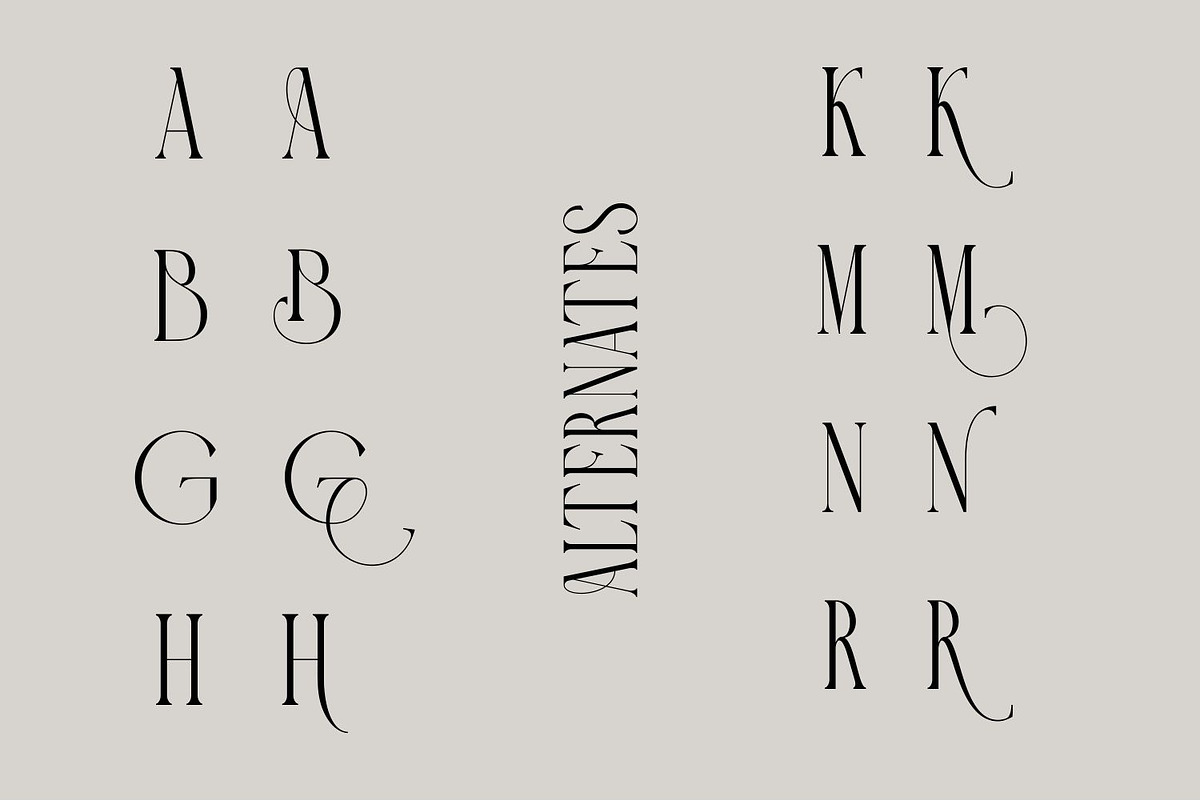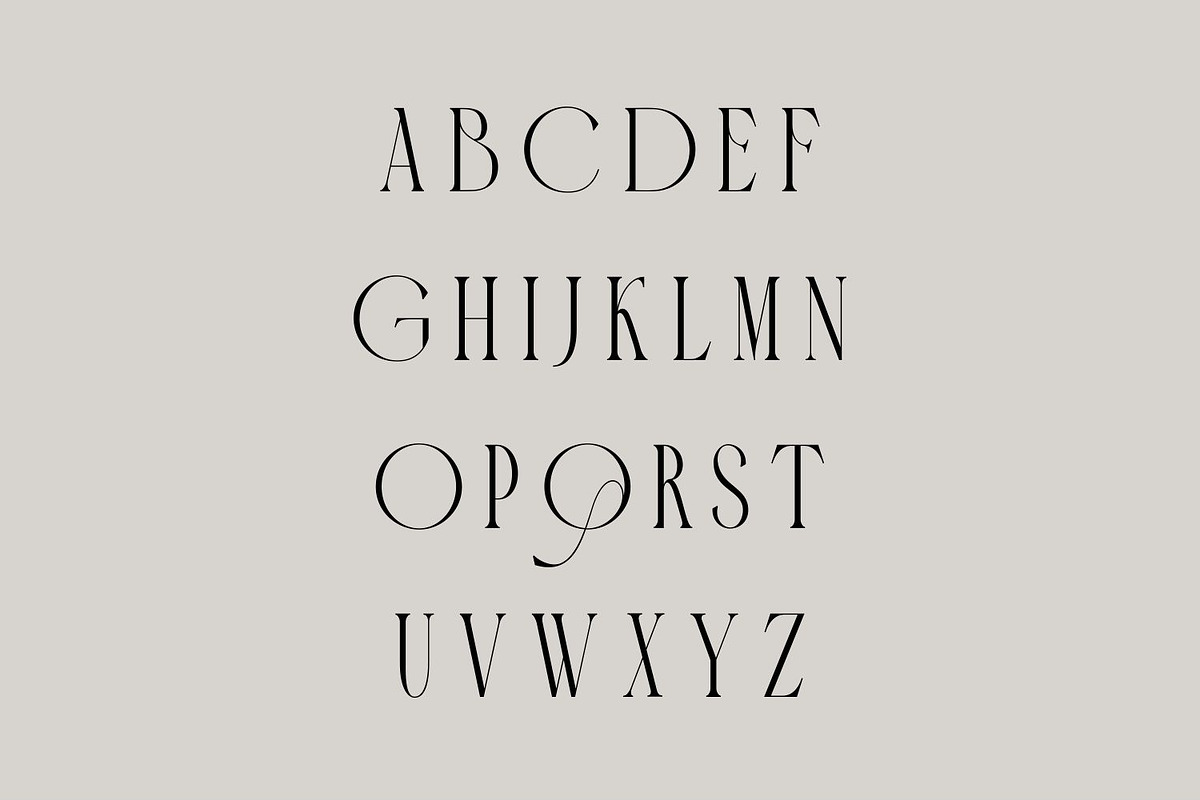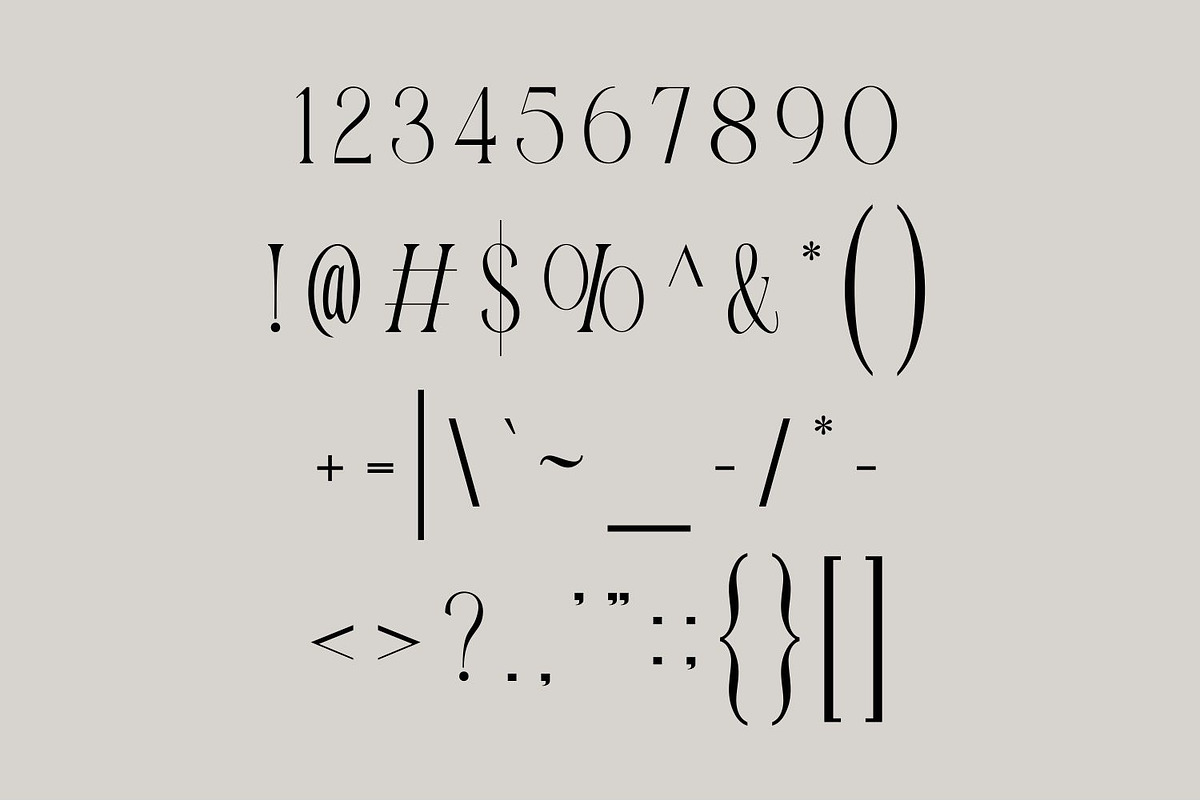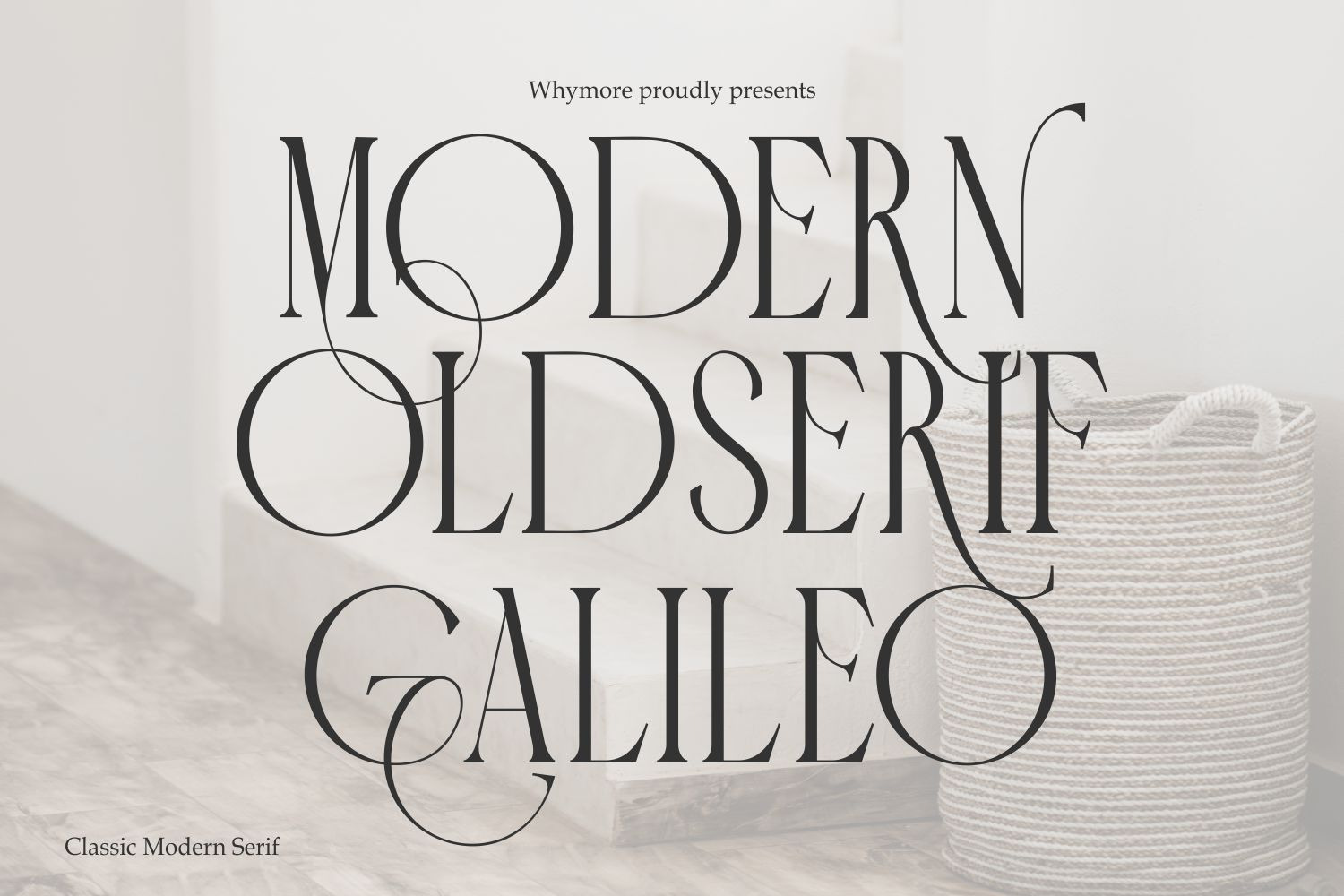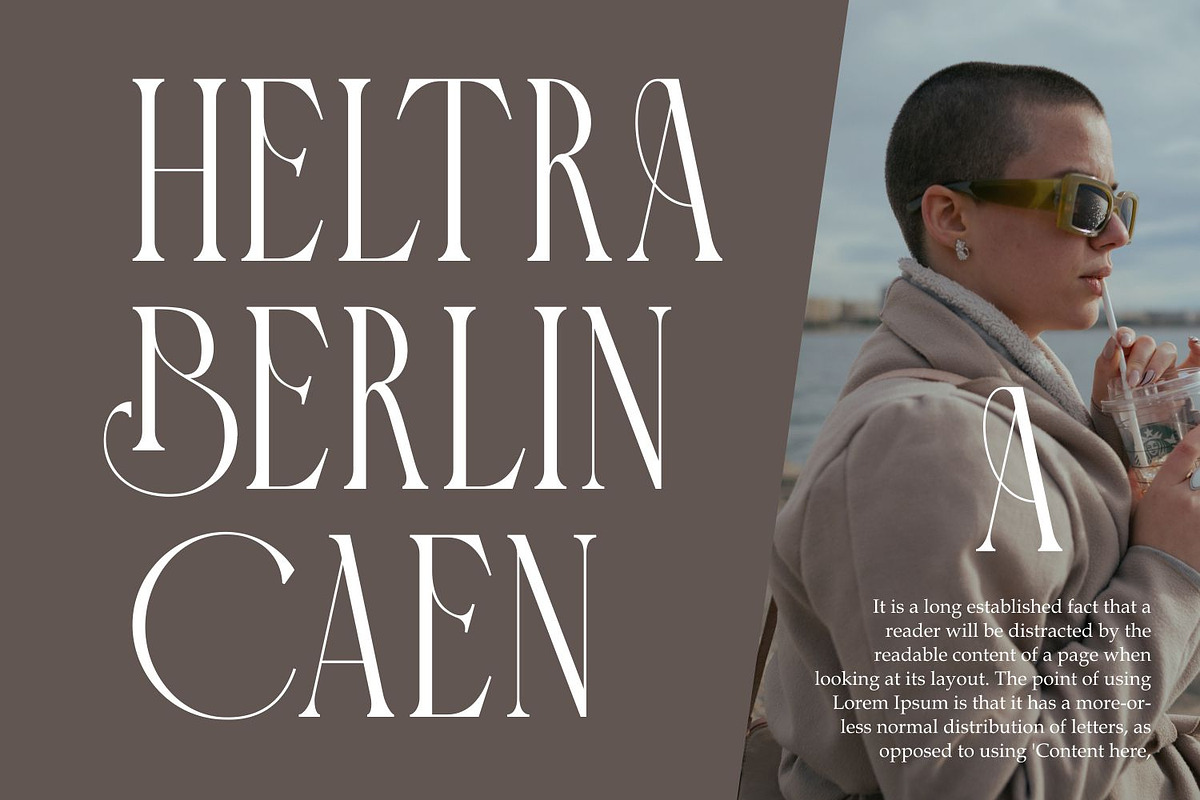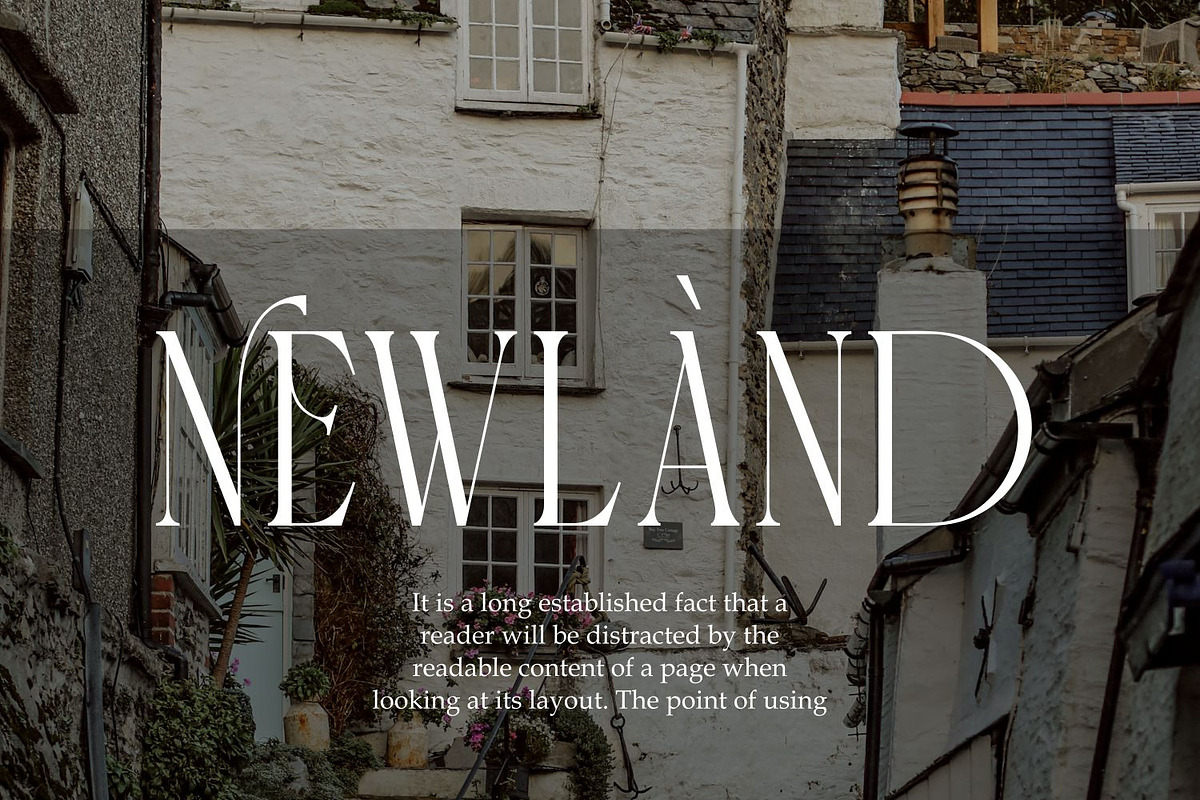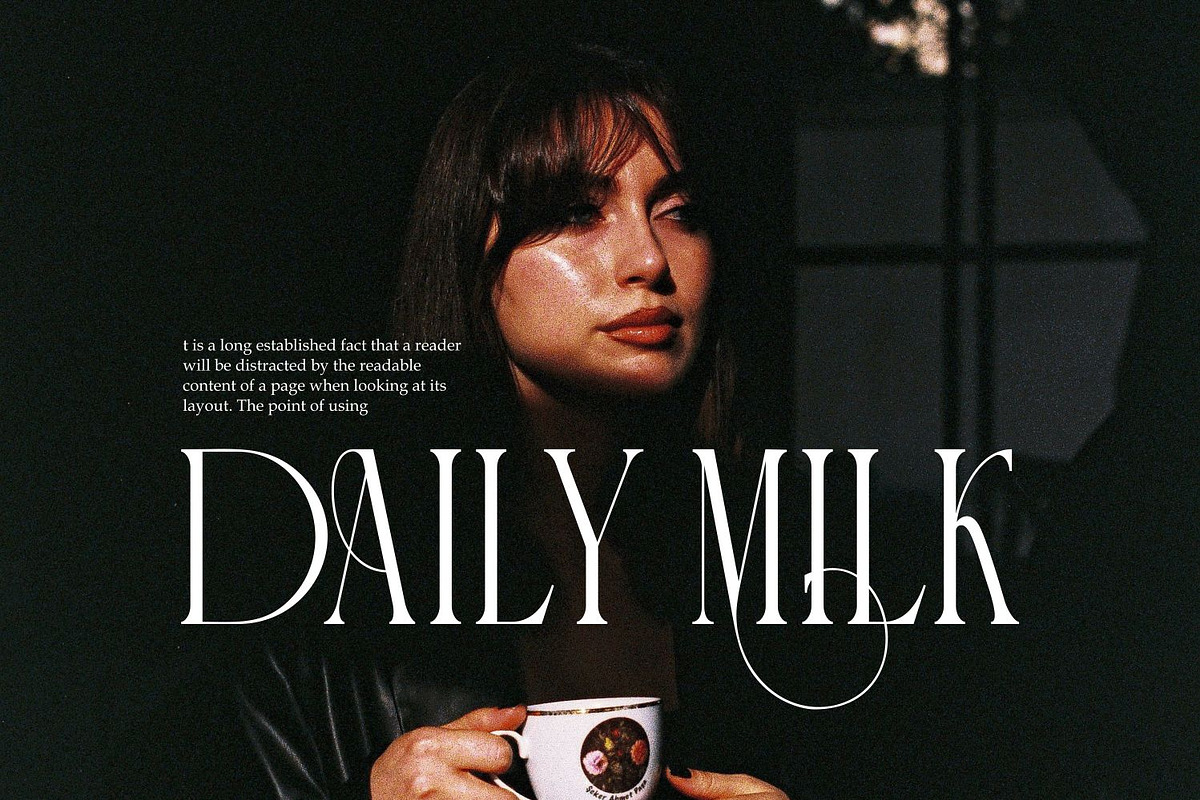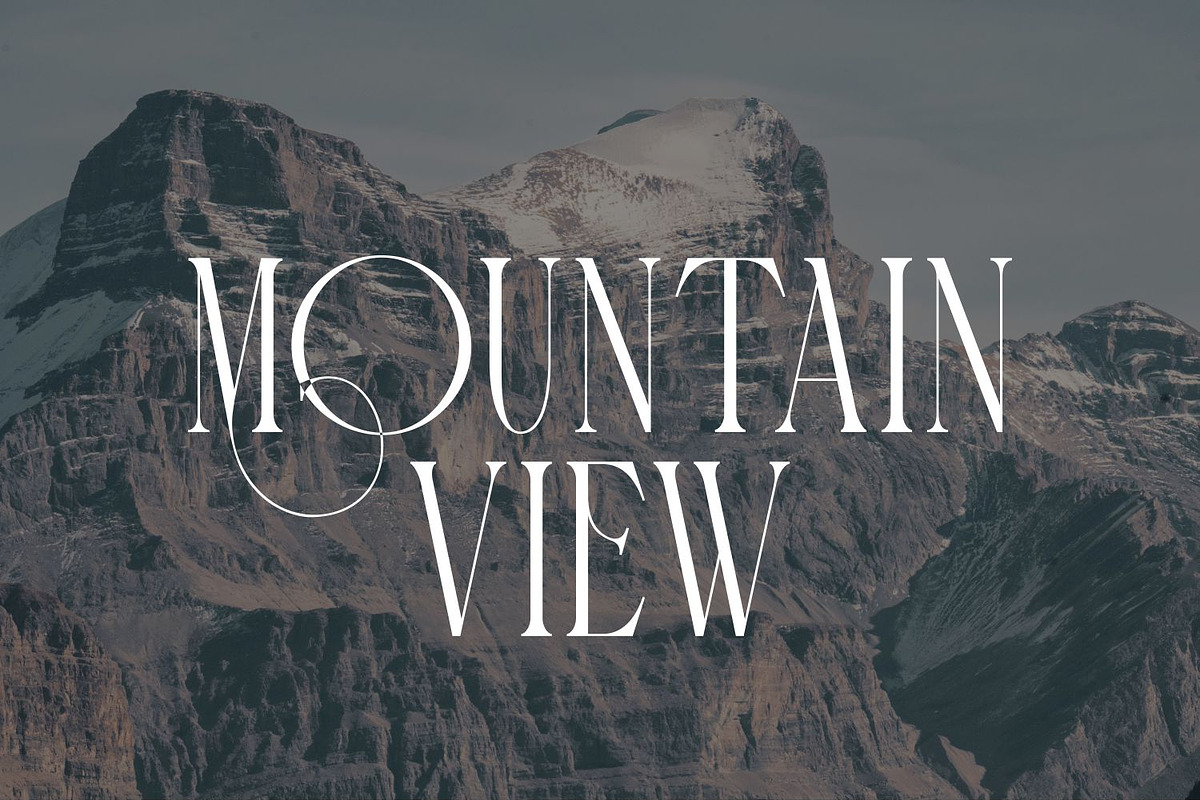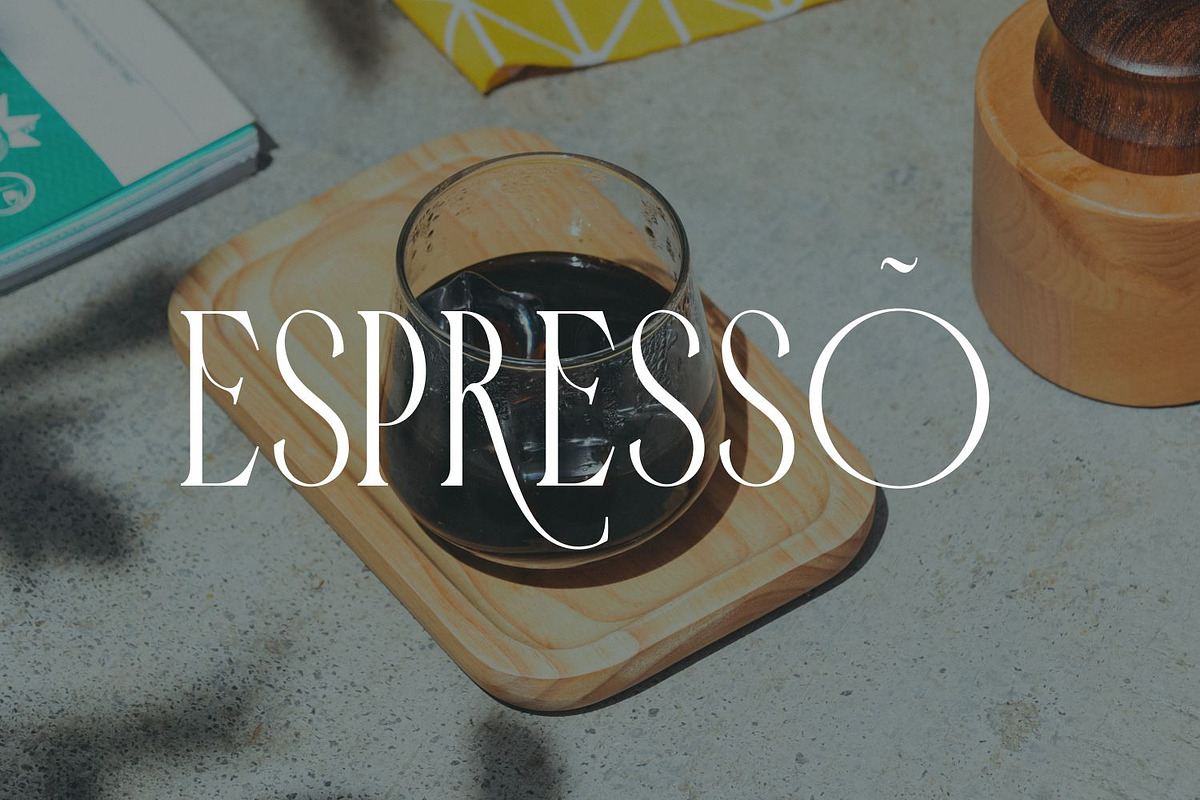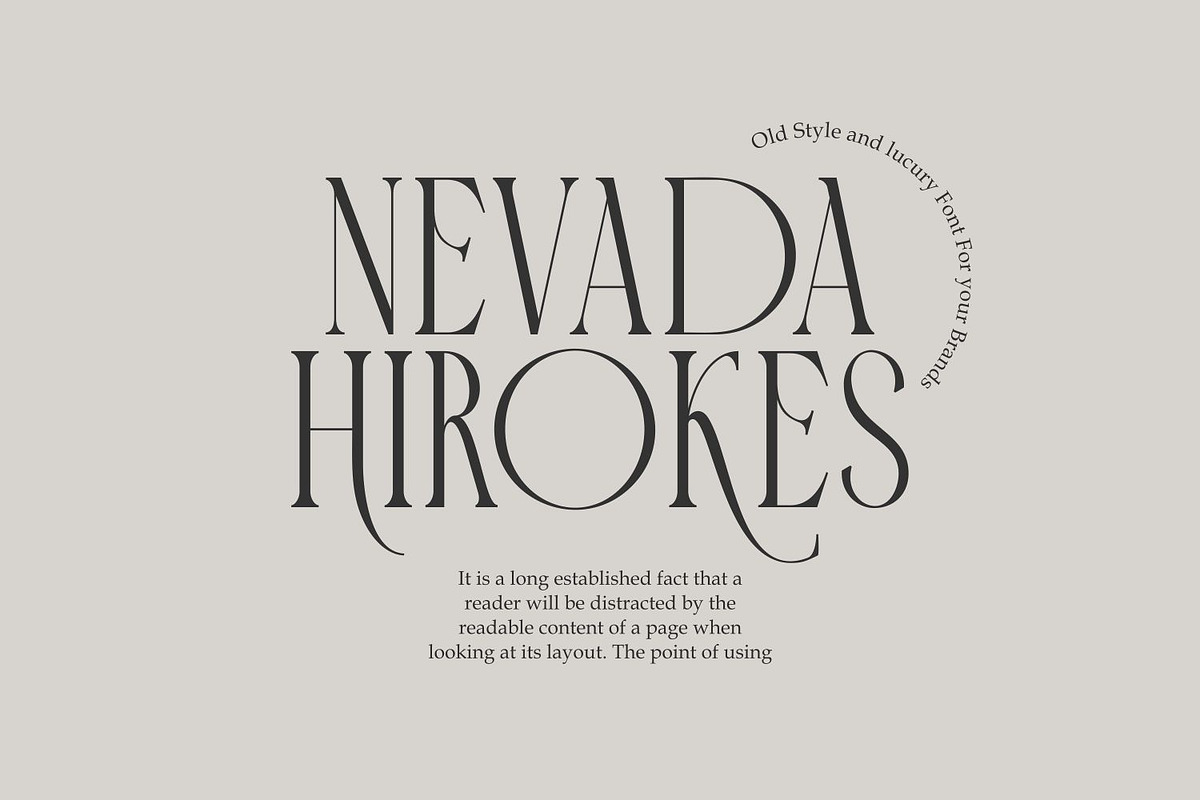
Galileo Sleek Classic serif Font
The Galileo Font is a timeless serif typeface that captures the essence of classic elegance and refinement. With its traditional letterforms and graceful curves, this font brings a sense of sophistication to any design project. Whether you’re creating invitations, branding materials, or editorial layouts, the Galileo Font adds a touch of timeless beauty that captivates the viewer. Its versatility makes it suitable for both formal and casual applications, ensuring your designs exude a sense of classic charm and grace.